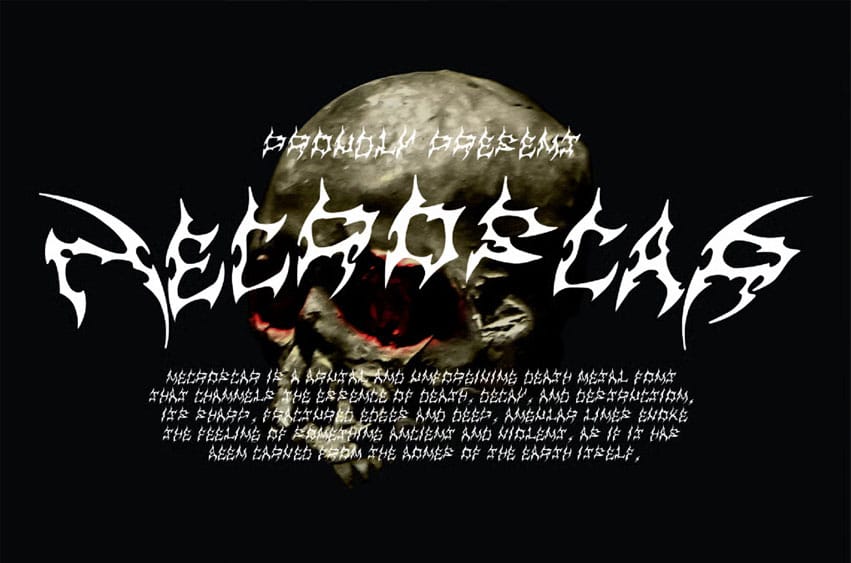
Necroscar Deathmetal Font is a brutal and unforgiving death metal font that channels the essence of death, decay, and destruction.
Its sharp, fractured edges and deep, angular lines evoke the feeling of something ancient and violent, as if it has been carved from the bones of the earth itself.